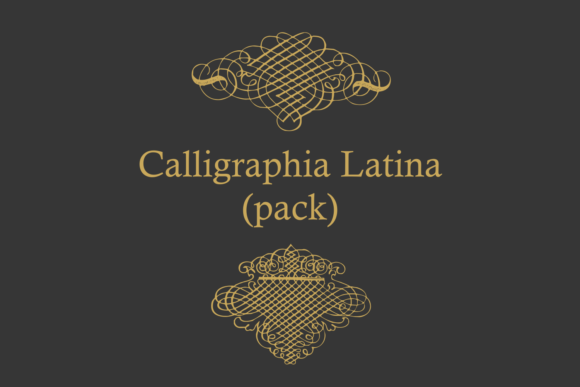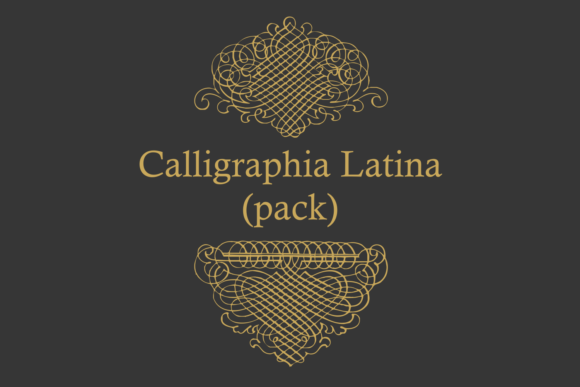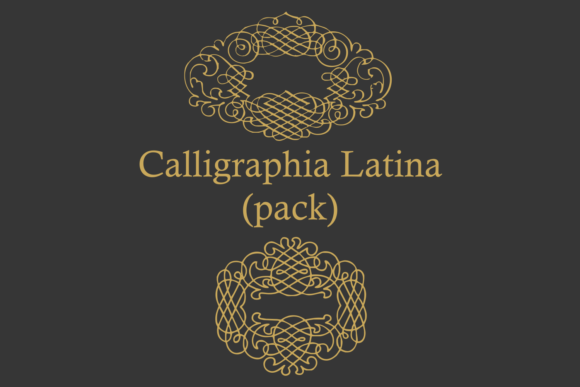
About Calligraphia Latina Font
The Calligraphia Latina font is an elegant and stylish lettering font that instantly conveys a sense of old-world charm and refinement. With its delicate and intricate glyphs, this font has the potential to create a design that is both visually appealing and visually stunning.
The Calligraphia Latina font is an incredible asset to any designer’s font library, with its tremendous versatility and wide range of motifs. With its delicate and intricate glyphs, this font can be used in a wide range of projects, from vintage-inspired corporate logos to luxury-themed invitations. Whether you’re designing a social media campaign for a high-end jewellery brand or an elegant wedding invitation, these delicate and intricate glyphs have the potential to add a touch of old-world charm and refinement to your design.
The Calligraphia Latina font is also an obvious choice for any designer looking for a visually striking and memorable font. With its delicate and intricate glyphs, this font has the potential to create a design that stands out from the crowd. Whether you’re designing a social media campaign for a luxury hotel brand or an elegant corporate logo, these delicate and intricate glyphs are sure to catch the eye of your audience and instantly convey a sense of old-world charm and refinement.
In addition, the delicate and intricate glyph glyphs in The Calligraphia Latino font are designed to be elegant and whimsical, without being overbearing or distracting. Whether they are classic and understated, or intricate and ornate, these delicate and intricate glyphs have the potential to make a design that is both visually appealing and easy to read.
So if you’re looking for a visually striking and memorable lettered font that can be used in a wide range of vintage, high-end, or luxury-themed projects, The Calligraphia Latina font is the ideal choice. With its delicate and intricate glyphs, this font has the potential to create a design that stands out from the crowd and conveys a sense of old-world charm and refinement.